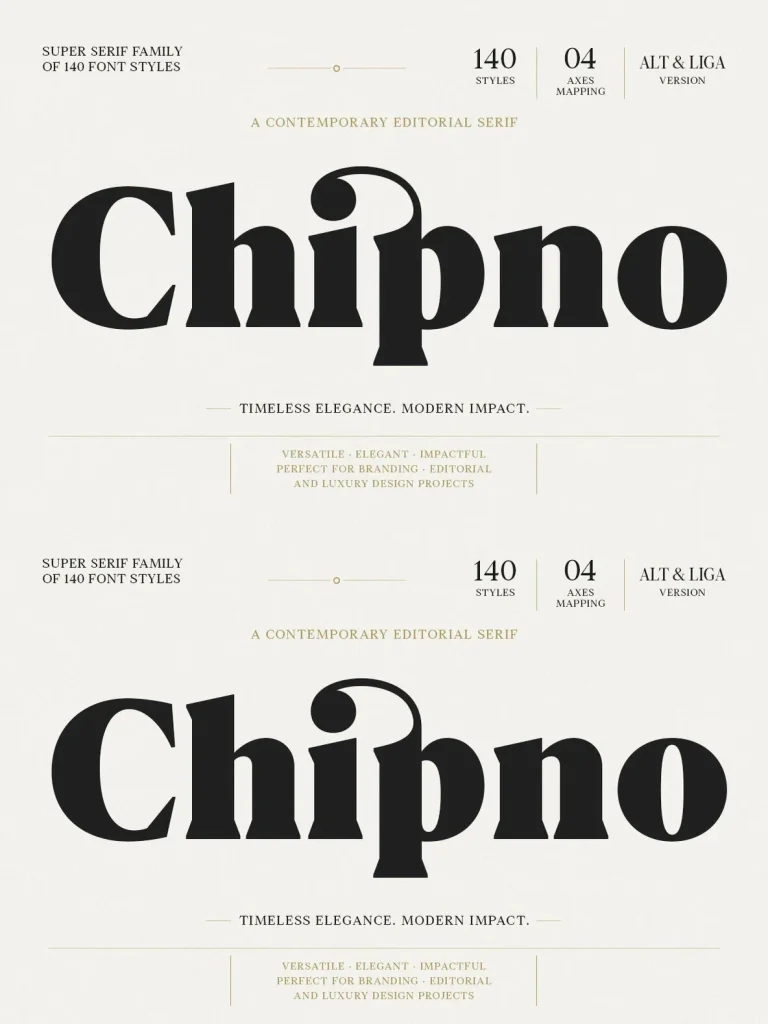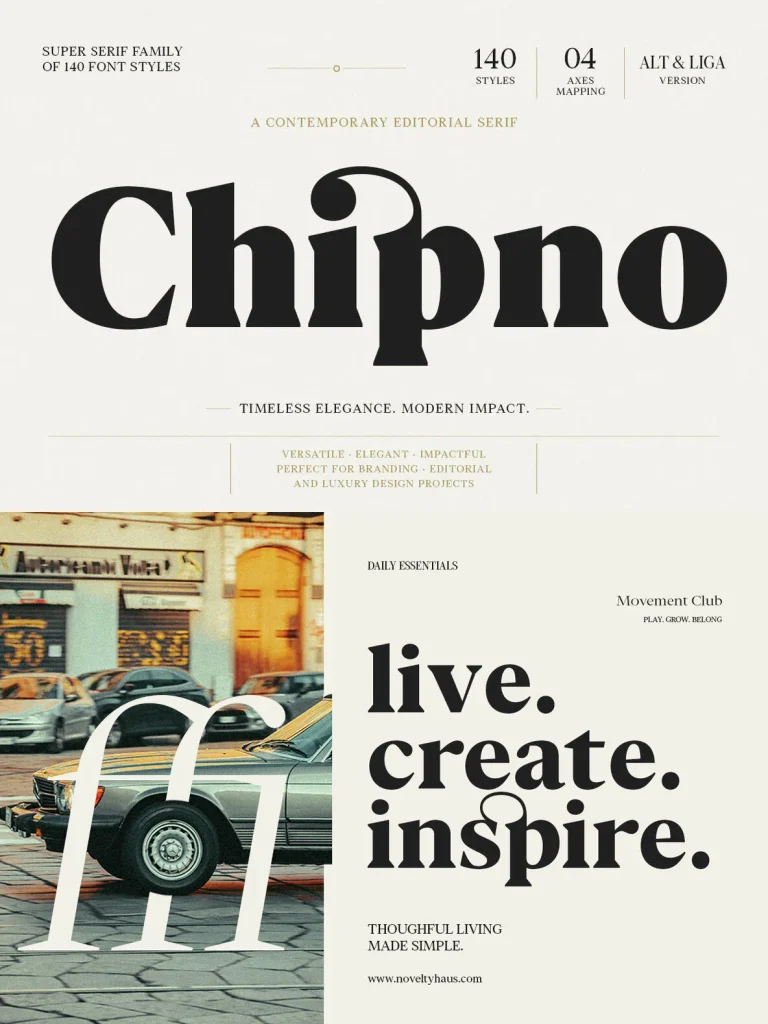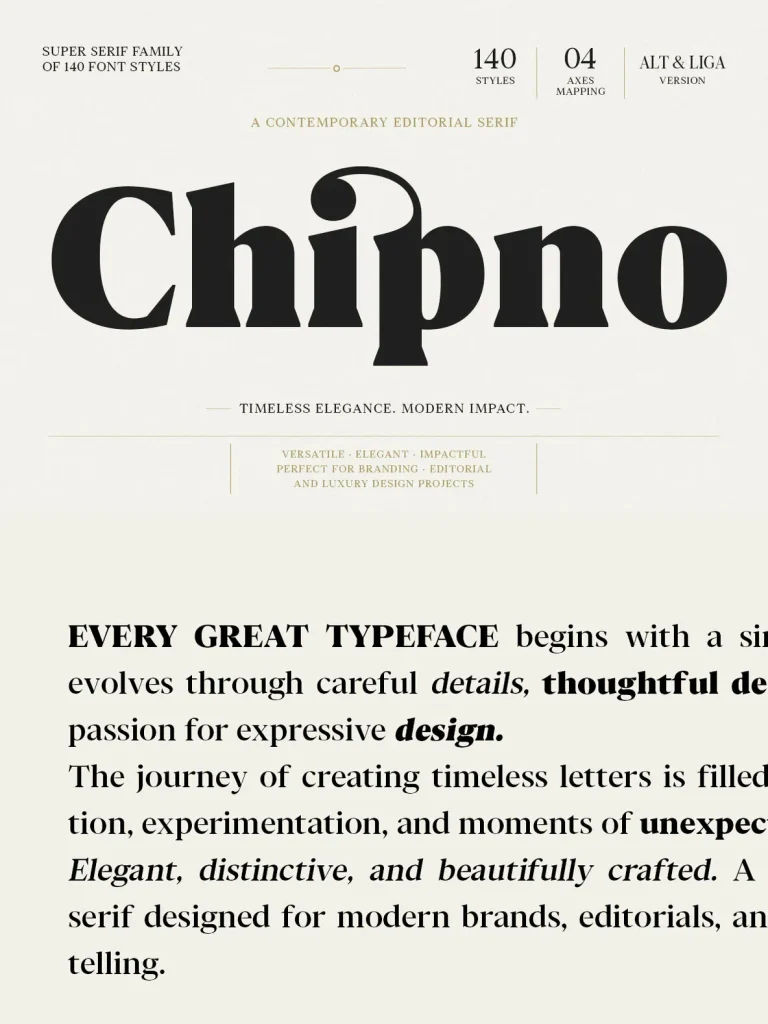
Chipno — Editorial Serif with Poise
Chipno is a contemporary editorial serif family built for sophisticated modern typography. Its elegant high-contrast letterforms, refined proportions, and expressive italics give text a bold, polished character. The family suits luxury branding, fashion editorials, magazine headlines, packaging, logos, and premium visual identities where a strong typographic voice matters.
With 140 font styles, 4 width axes (Condensed, Semi Condensed, Normal, Semi Expanded, and Expanded), plus alternate characters and ligatures, Chipno gives designers wide control across display and editorial settings. Use it for striking headlines, polished layouts, timeless branding, or modern creative projects that need a distinctive balance of elegance, versatility, and visual impact.